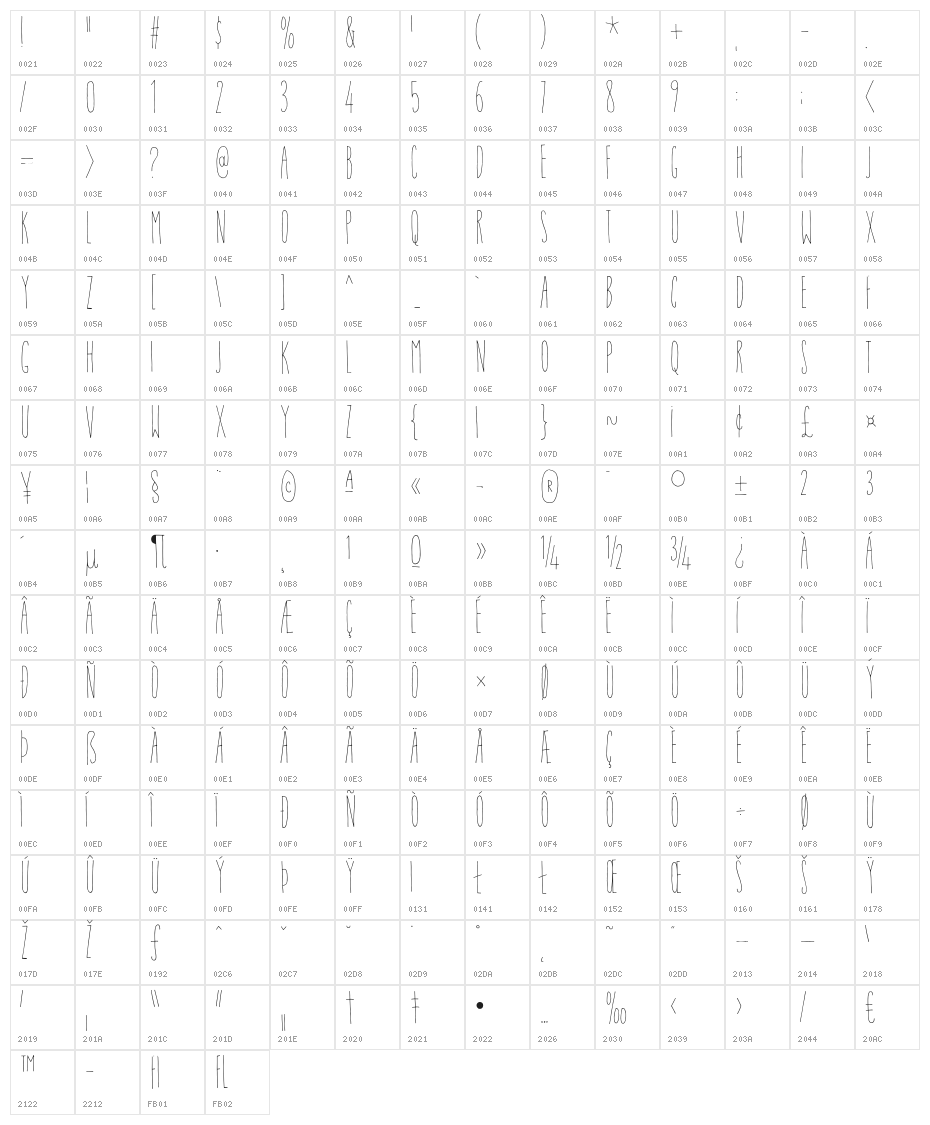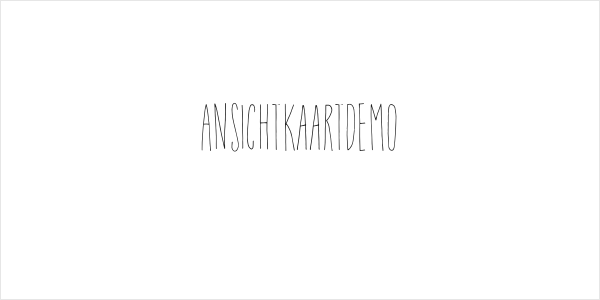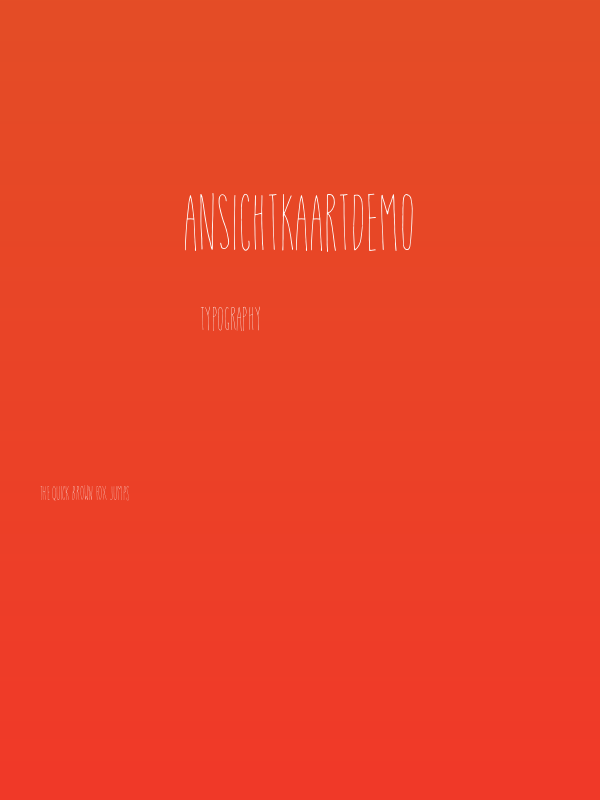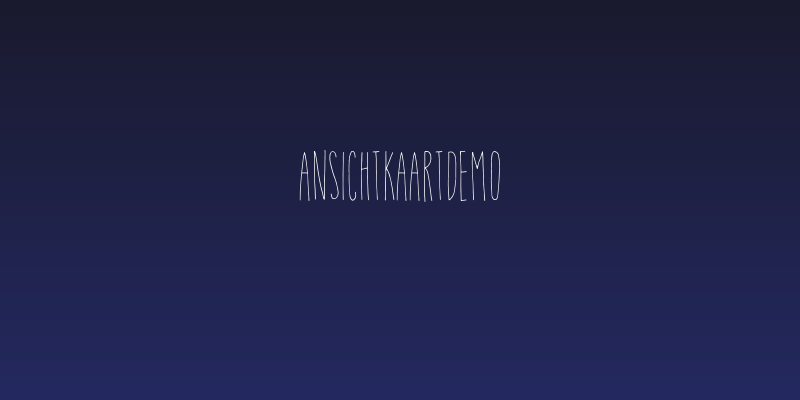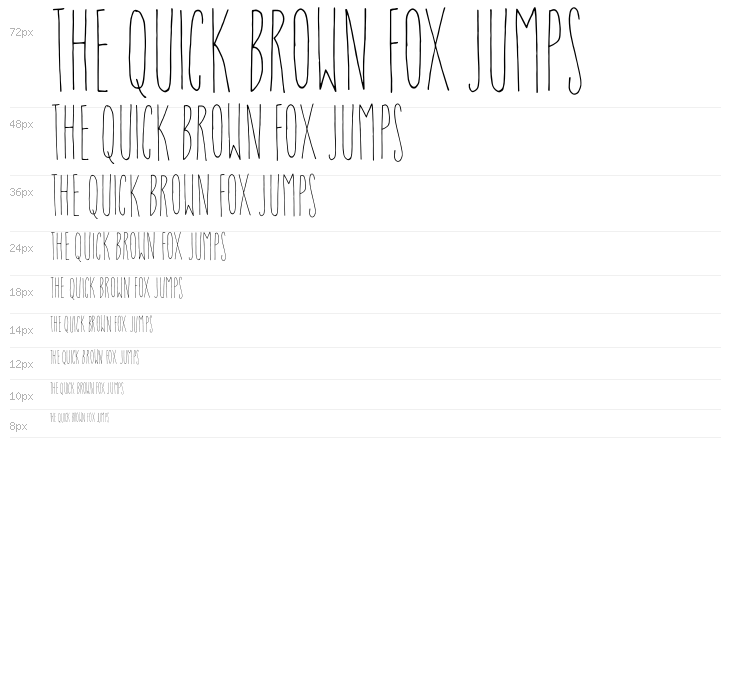
AnsichtkaartDEMO Font
AnsichtkaartDEMO Description
This font features a tall, narrow design with a handwritten aesthetic, characterized by its elongated and slightly irregular letterforms. The strokes are thin and consistent, giving it a delicate and whimsical appearance. The uppercase and lowercase letters maintain a cohesive style, while the numbers and special characters complement the overall look. The font's playful yet elegant nature makes it suitable for creative and artistic projects. Its unique style stands out, making it ideal for designs that require a personal touch or a handcrafted feel.
| Use Case | Headlines, Artistic designs, Personal projects |
| Proposed Projects | Ideal for greeting cards, invitations, posters, and artistic branding. |